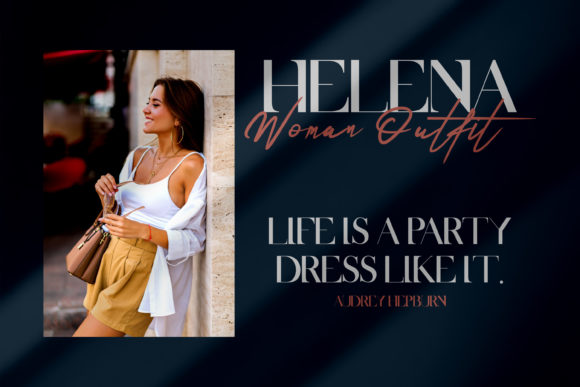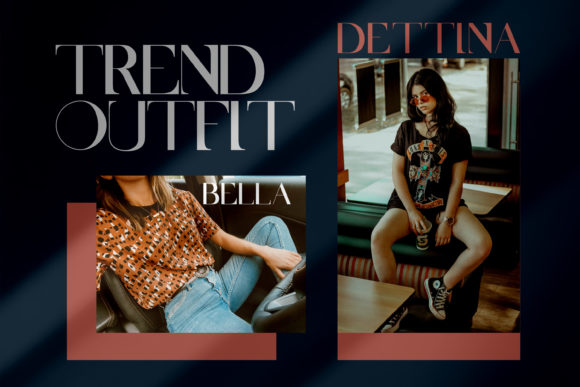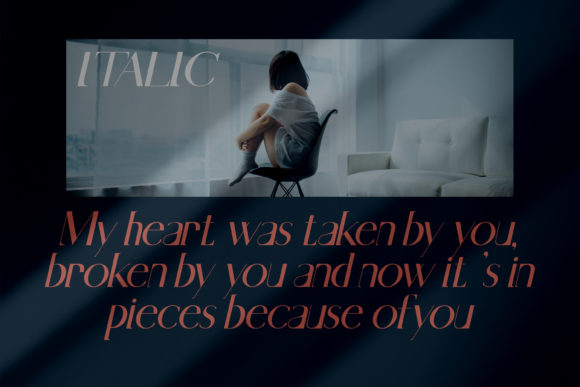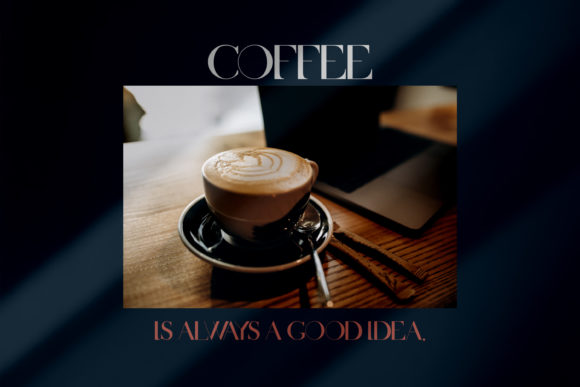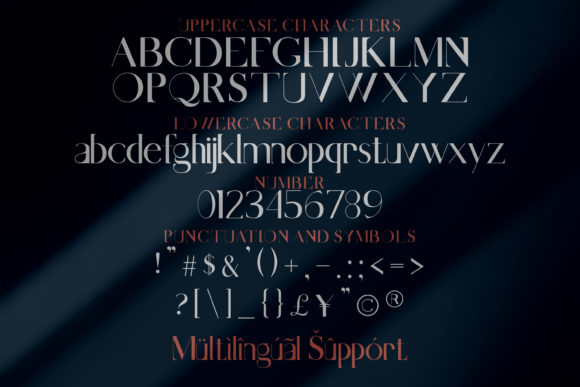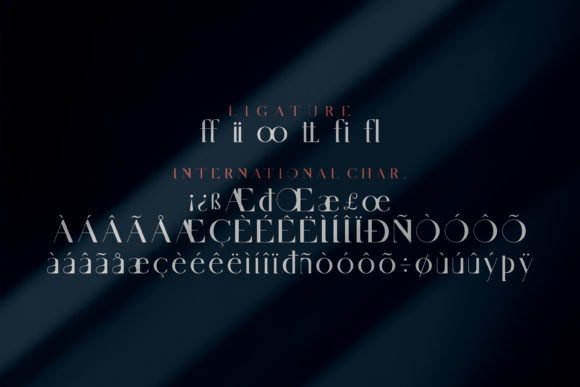
Introduction to Sattint Font
Sattint is a modern and classy serif font.
Fall for its elegant style and use it to create gorgeous wedding invitations, beautiful stationary art, eye-catching social media posts, and much more .
Key Features of Sattint Font